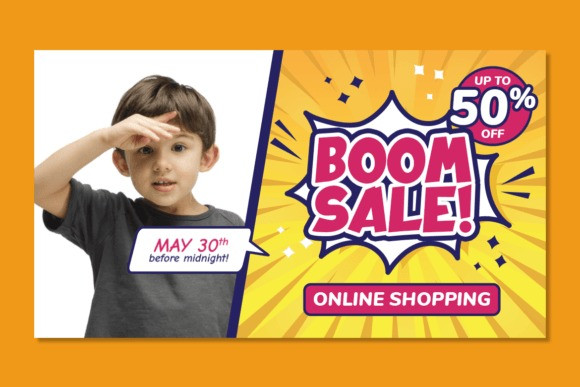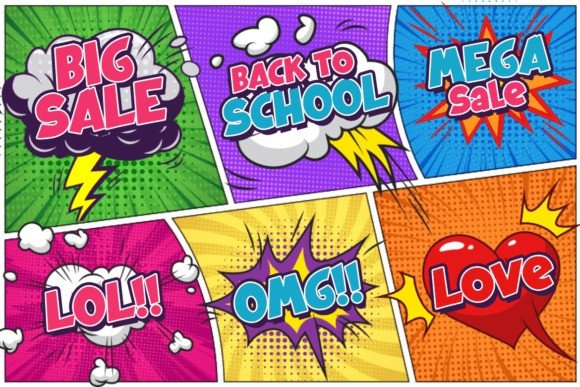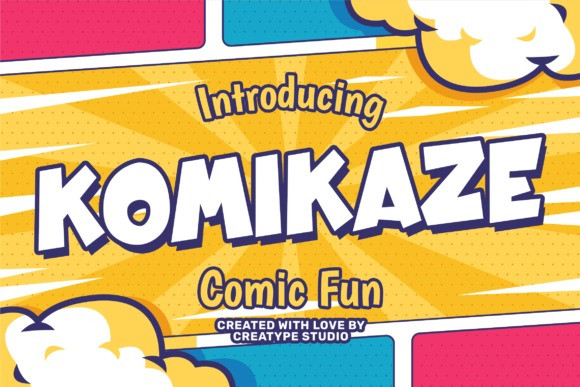
Komikaze Font
Komikaze Display Font is a creative typeface that could bring out the fun side of your design projects. Have fun playing with Komikaze!
Komikaze is perfect for branding projects, logos, wedding designs, social media posts, advertisements, product packaging, product designs, labels, photography, watermarks, invitations, stationery, and any projects that need bold typography. This font is PUA encoded, which means you can access all of the glyphs and swashes with ease!